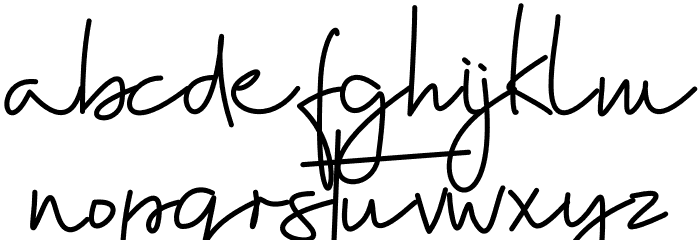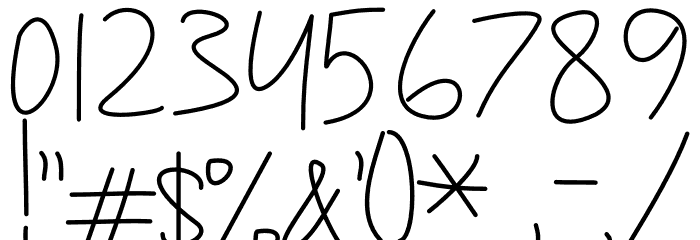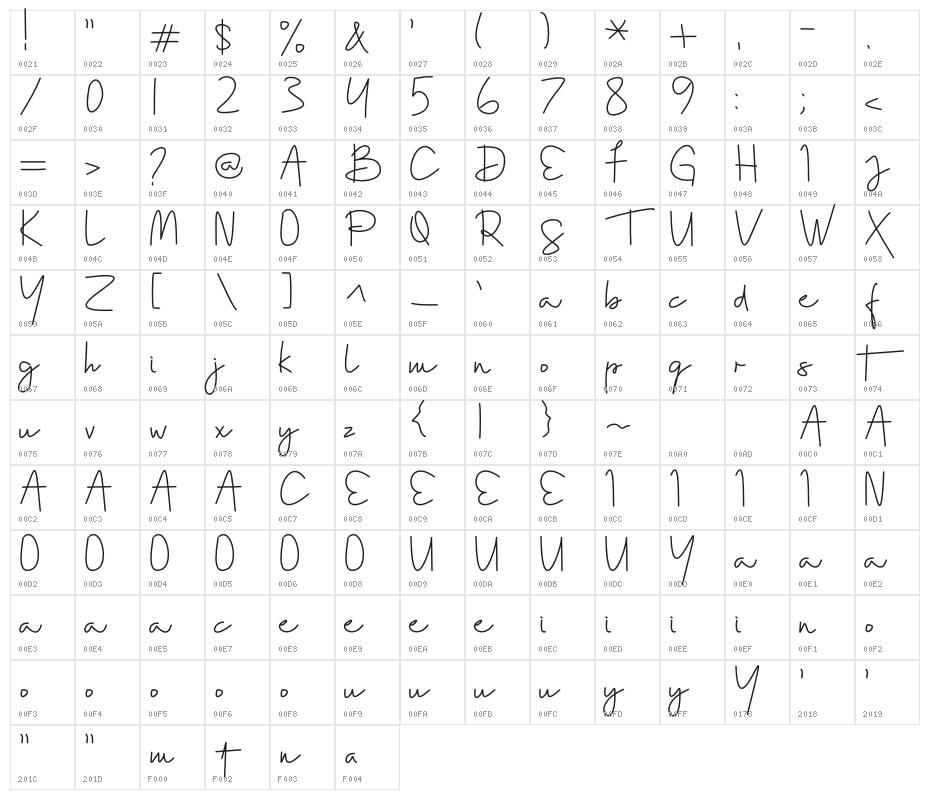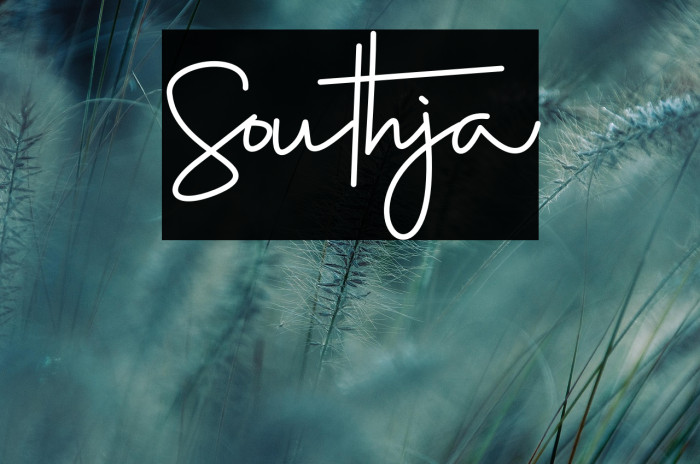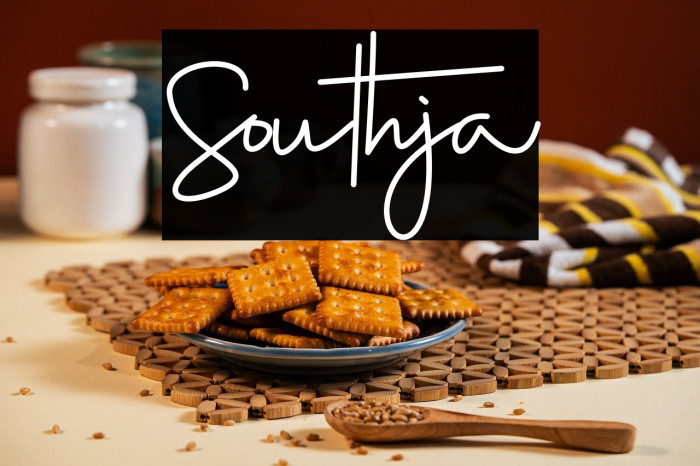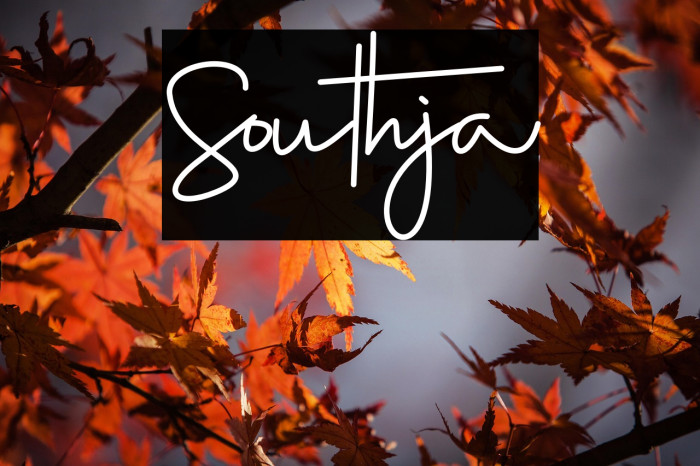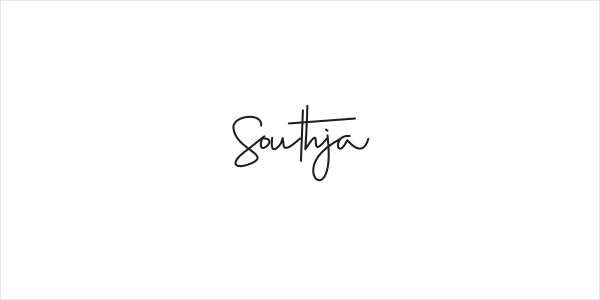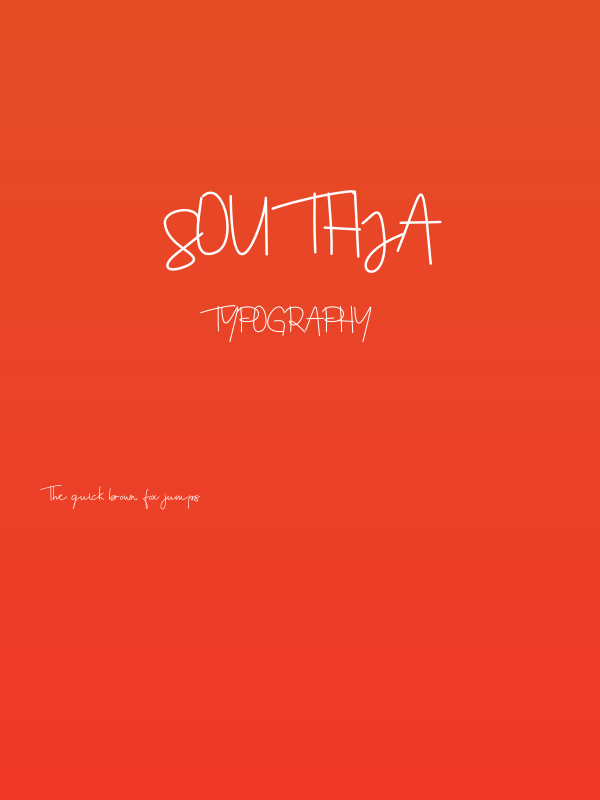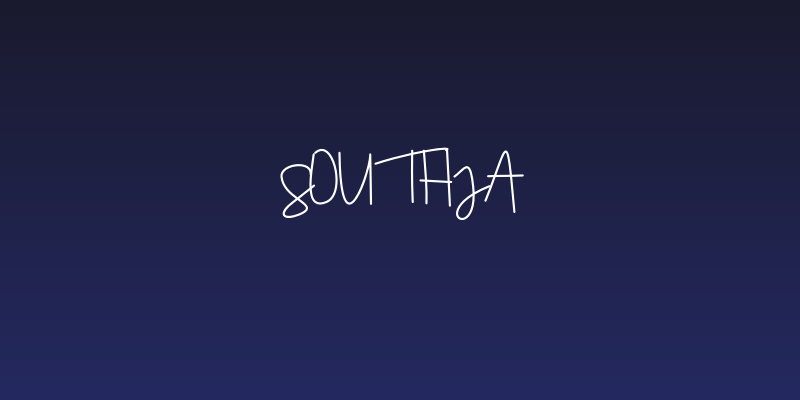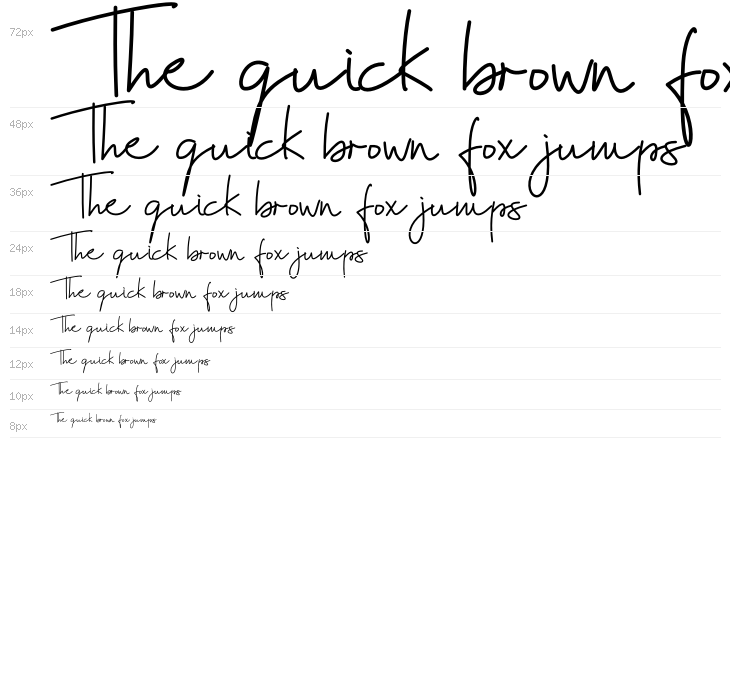
Southja Font
This font features a playful and casual handwritten style, characterized by its fluid and dynamic strokes. The uppercase letters are tall and slightly narrow, with a whimsical flair that adds personality. The lowercase letters maintain a consistent flow, with some letters featuring unique loops and curves that enhance the font's informal aesthetic. The numbers are legible and maintain the same playful style, making them suitable for various creative applications. Special characters are included, each designed to complement the overall style, ensuring versatility in usage. The font's overall appearance is lively and approachable, making it ideal for projects that require a personal touch.
A playful, casual handwritten font with dynamic strokes and whimsical flair.
- Font: Southja
- Proposed Projects: Greeting cards, personal branding, social media graphics, children's books, and creative invitations.
- Category: Handwritten
- Overall Style: Casual, Playful
- Use Case: Headlines, Logos, Informal Text